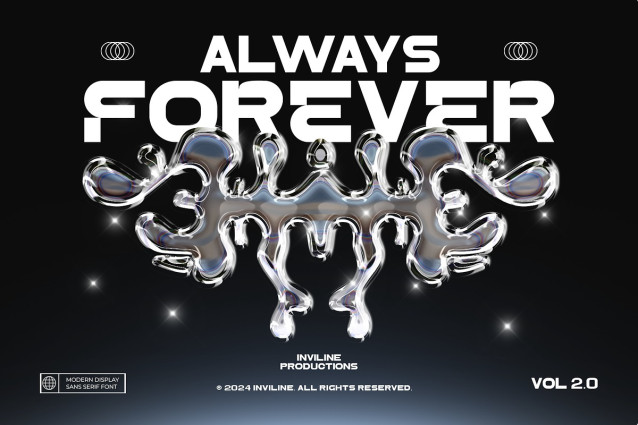
Enzo Font
Enzo Moana Font is a bold, modern sans-serif typeface designed for impactful display. With clean geometric forms, powerful presence, and a futuristic vibe, this font is perfect for tech branding, editorial headlines, music covers, fashion campaigns, and bold web design. Featuring alternate characters and ligatures, Enzo Moana Vol. 2.0 brings versatility and dynamic visual rhythm into your typography.